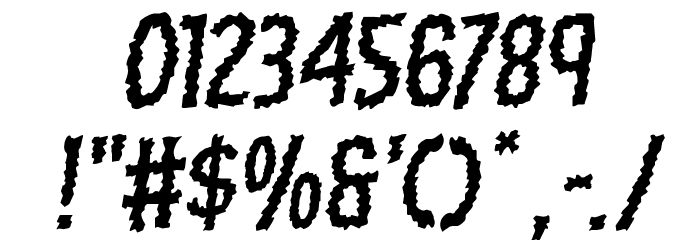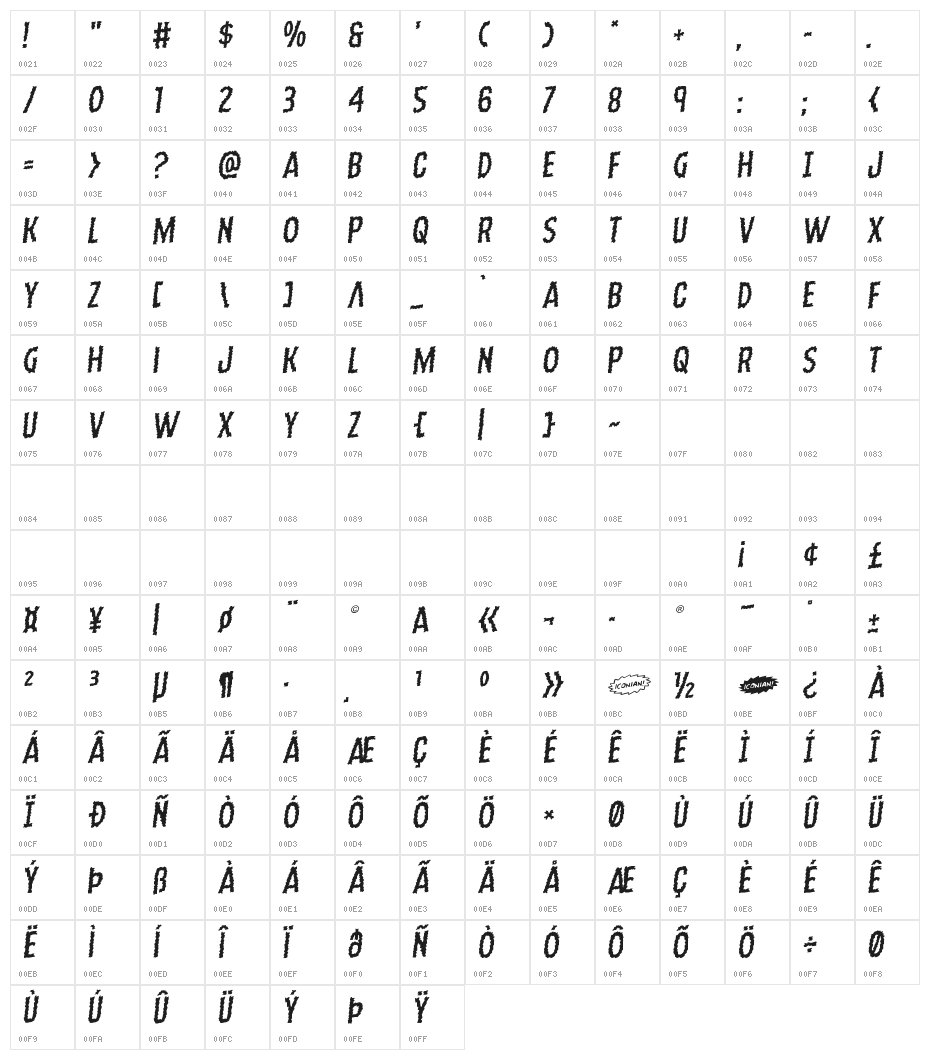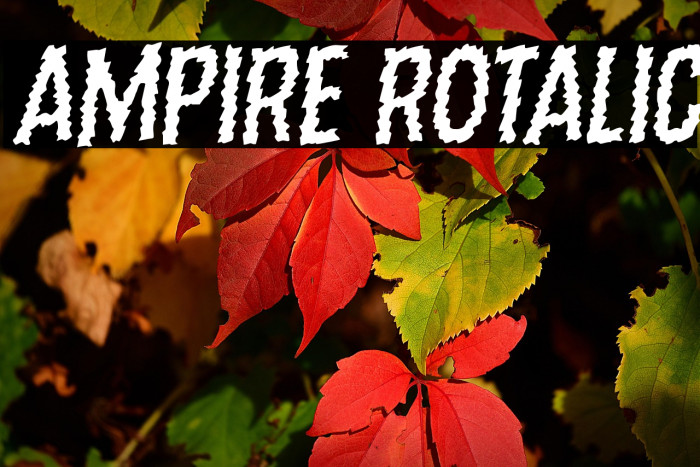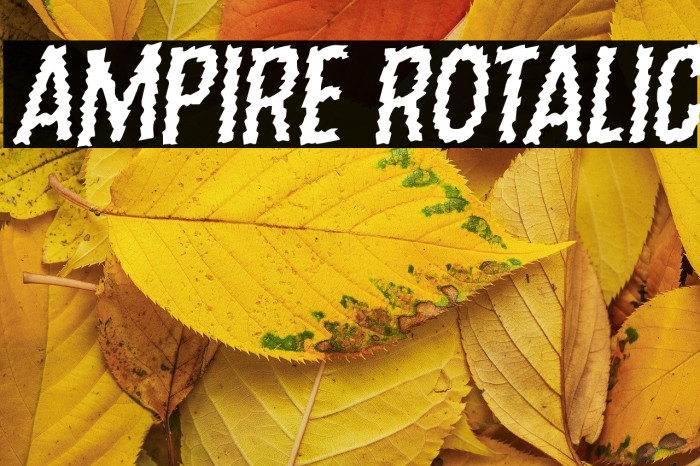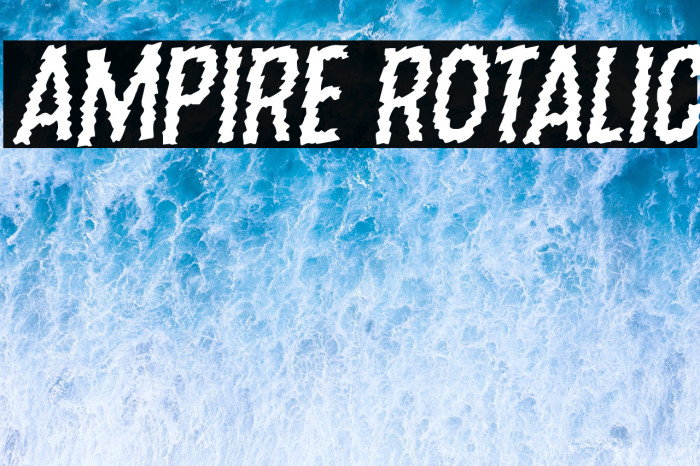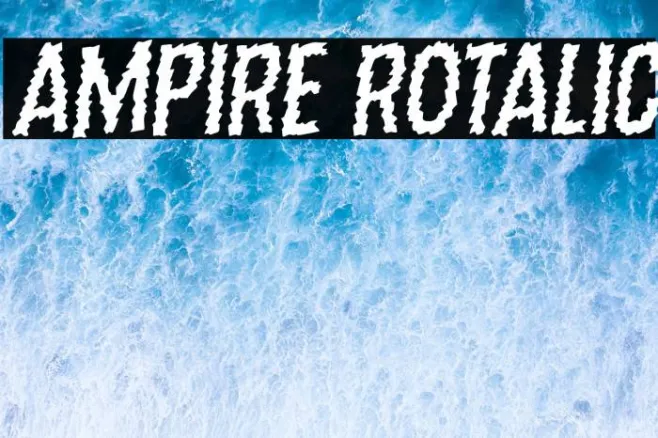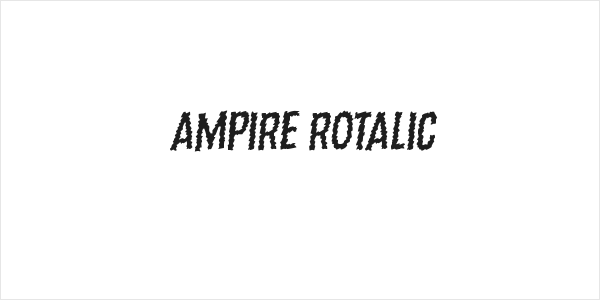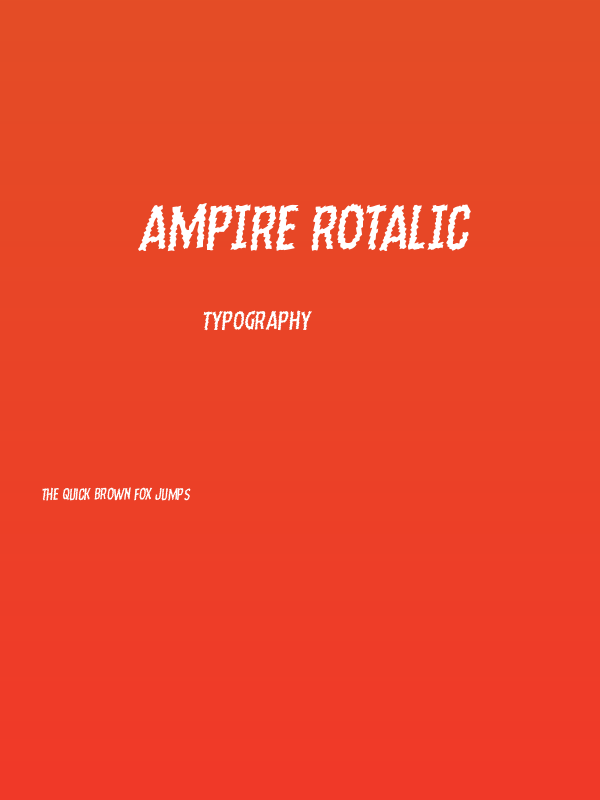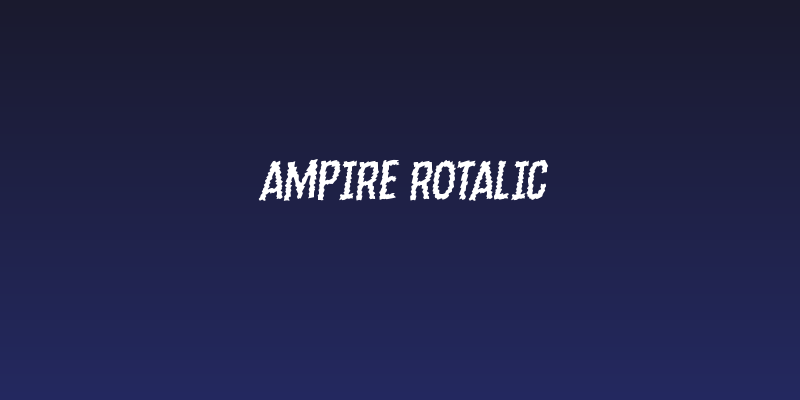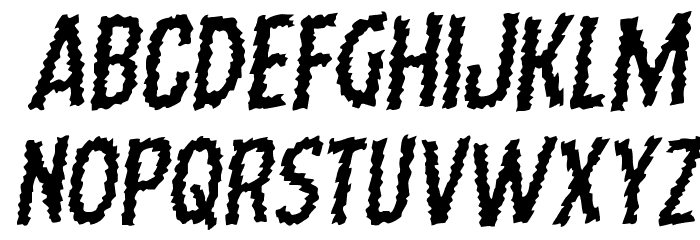
Ampire Rotalic Font
Ampire Rotalic Description
This font features a bold and dynamic style characterized by jagged, zigzag edges that give it a sense of movement and energy. The letters are slightly slanted, adding to the overall dynamic feel. The uppercase and lowercase letters maintain a consistent design, with each character exhibiting a unique, sharp outline. The numbers and special characters follow the same stylistic approach, ensuring uniformity across all elements. This font's distinctive appearance makes it stand out, ideal for projects that require a bold statement.
| Proposed Projects | Ideal for posters, album covers, video game titles, and any project needing a bold, energetic typeface. |